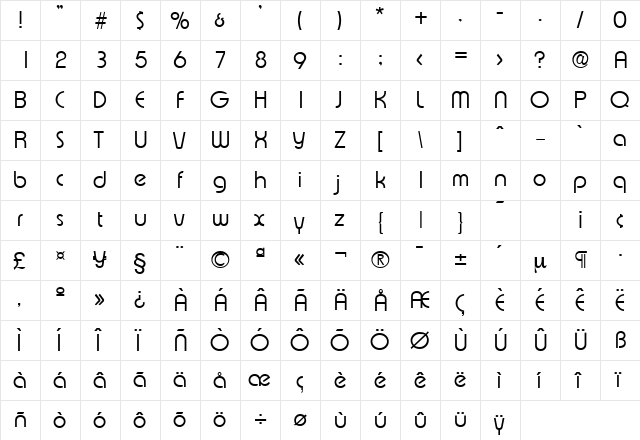
Expressa-Serial-Light Regular Font Preview
Expressa-Serial-Light Regular
Expressa-Serial-Light Regular Font Details
Design Context for Expressa-Serial-Light Typeface
Expressa-Serial-Light is a composed and adaptable typeface that performs quietly and consistently across a wide range of design contexts. The delicate stroke weight brings airiness and refinement to layouts.